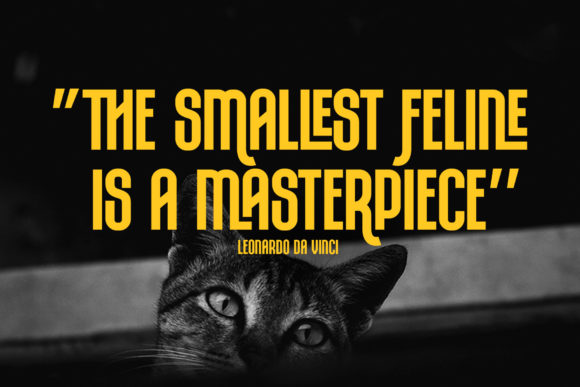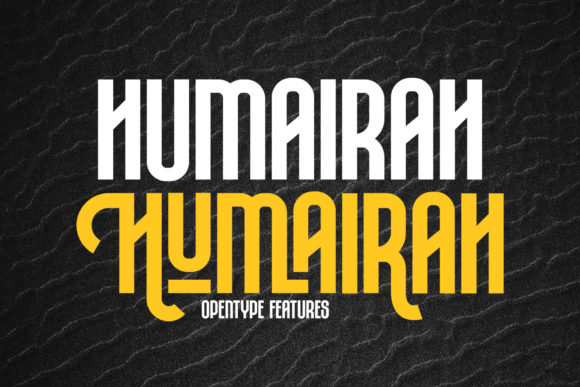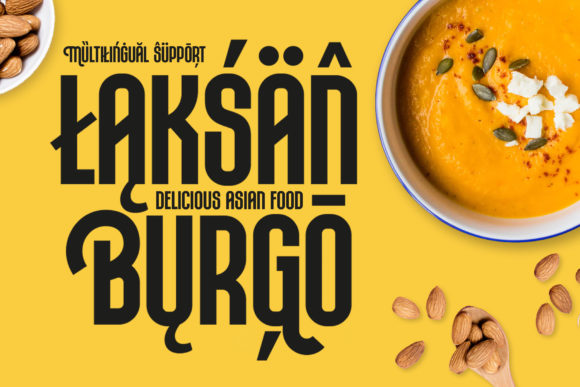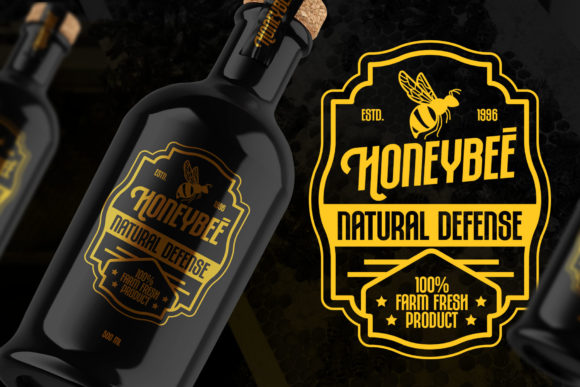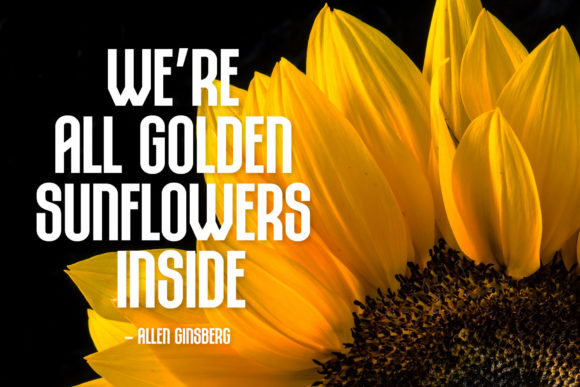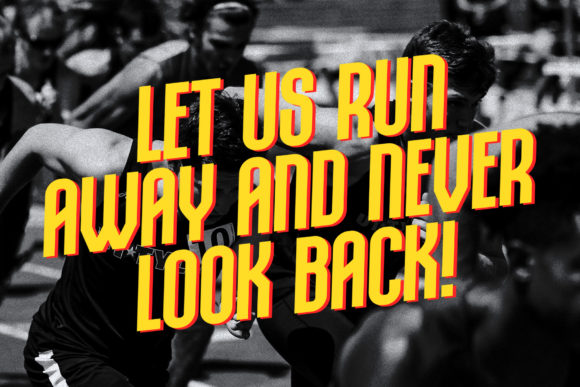
Introduction to Rompies Font
Rompies is a daring and assertive display font.
No matter the topic, this font will be an incredibly asset to your fontsโ library, as it has the potential to elevate any creation .
Key Features of Rompies Font
Why Choose Rompies Font?